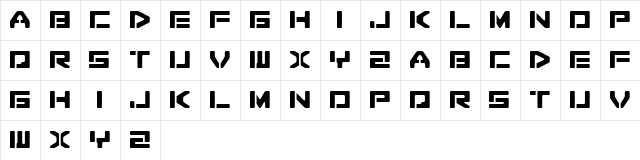
Kram espaciada espaciada
| Designer | Carlos Matteoli |
Design Context for Kram espaciada Typeface
Kram espaciada is a composed and adaptable typeface that performs quietly and consistently across a wide range of design contexts.